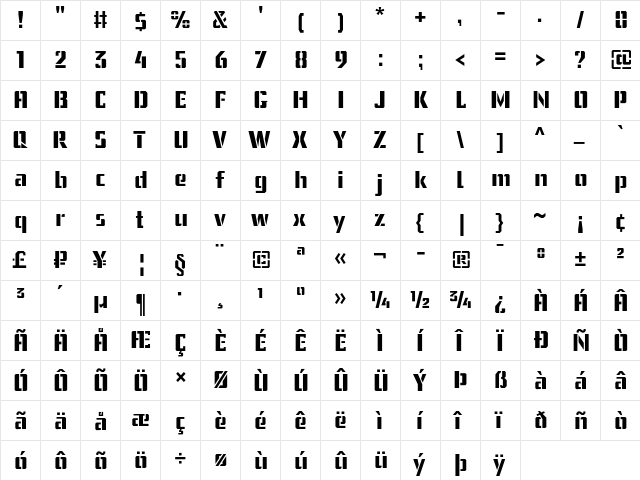
USSR STENCIL Regular
| Foundry | Anastasia Mihaleva & Jovanny Lemonad |
| Designer | Anastasia Mihaleva & Jovanny Lemonad |
Design Context for USSR STENCIL Typeface
USSR STENCIL borrows the utilitarian aesthetic of stencil lettering, with its characteristic cutaways and no-frills construction lending an industrial edge.
A strong choice for packaging that needs edge, warehouse aesthetics, and rough-and-ready visual identities.
Pro Tip: Use USSR STENCIL at large sizes on packaging, posters, or apparel where the stencil cutaways read clearly. Avoid small sizes where those gaps become visual noise.